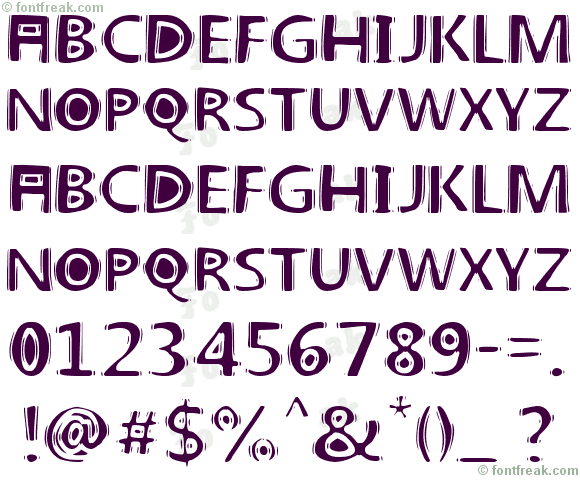
linoleum
About linoleum
The Linoleum font by woodcutter Manero is a distinctive display typeface that captures a rustic yet playful aesthetic. This freeware font showcases unique visual characteristics, featuring uneven stroke weights that create an organic, hand-crafted feel. The curves and edges of the letters are slightly distressed, giving them a textured appearance reminiscent of linoleum prints. The spacing is generous, allowing for easy readability while maintaining a sense of whimsy.
The Linoleum font is particularly well-suited for various creative applications. It excels in crafting eye-catching restaurant menus, where its playful nature can enhance the dining experience. Additionally, this typeface is perfect for vibrant movie posters, lending a unique flair that draws attention. Wedding invitations can also benefit from the Linoleum font, as its informal charm adds a touch of personality. Furthermore, it can be utilized in promotional materials for small businesses looking to convey a friendly and approachable image.
Targeting graphic designers, small business owners, and content creators, the Linoleum font provides a versatile option for those seeking to inject a dash of creativity into their projects. Its character and charm make it an excellent choice for anyone aiming to stand out in a crowded visual landscape.
What sets the Linoleum font apart is its ability to blend playfulness with artistic integrity. The irregularities in its design not only evoke a handmade quality but also resonate with audiences seeking authenticity in their visual messaging. Whether you're designing for print or digital platforms, the Linoleum font free download is a valuable addition to your typography toolkit, ensuring your projects leave a lasting impression.